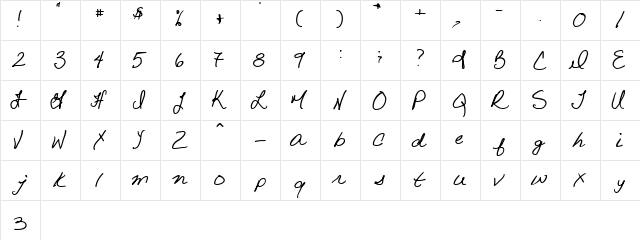
Adrea Jolyn Normal
Design Context for Adrea Jolyn Typeface
Adrea Jolyn takes a measured approach to typography — its balanced proportions and neutral character make it a reliable workhorse for both digital and print work.